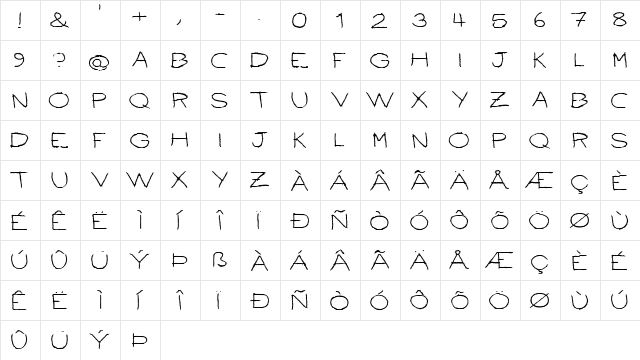
BallpointScratch Regular
Design Context for BallpointScratch Typeface
BallpointScratch is a composed and adaptable typeface that performs quietly and consistently across a wide range of design contexts.